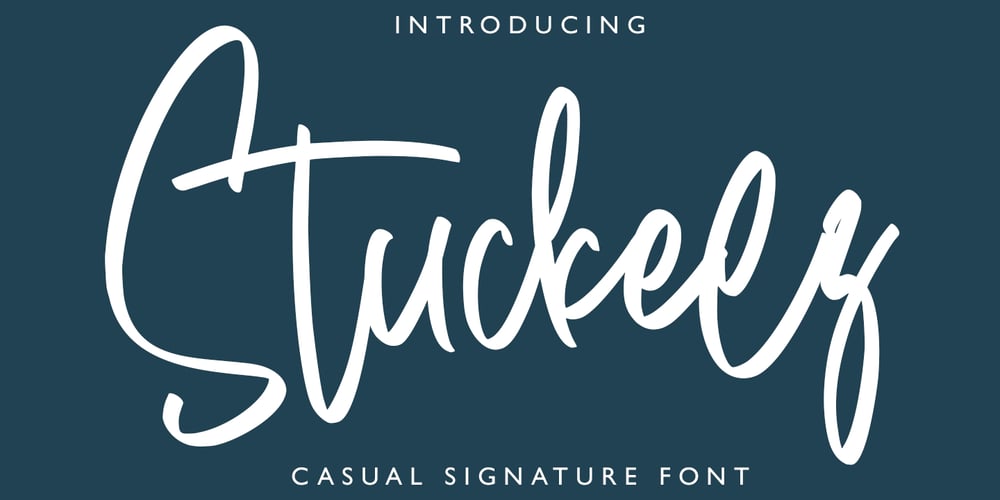
Stuckeez Font Family was designed by Asep Rendi and published by Arendxstudio. Stuckeez contains 1 styles and family package options. Stuckeez – Signature Font is a handwritten signature script with a natural & stylish flow. This collection of scripts is perfect for personal branding. this works well for many applications. Everything from personal branding & wedding invitations to advertising could benefit from this collection of signature fontsFeatures : • Character Set A-Z • Numerals & Punctuations (OpenType Standard) • Accents (Multilingual characters) • Ligature